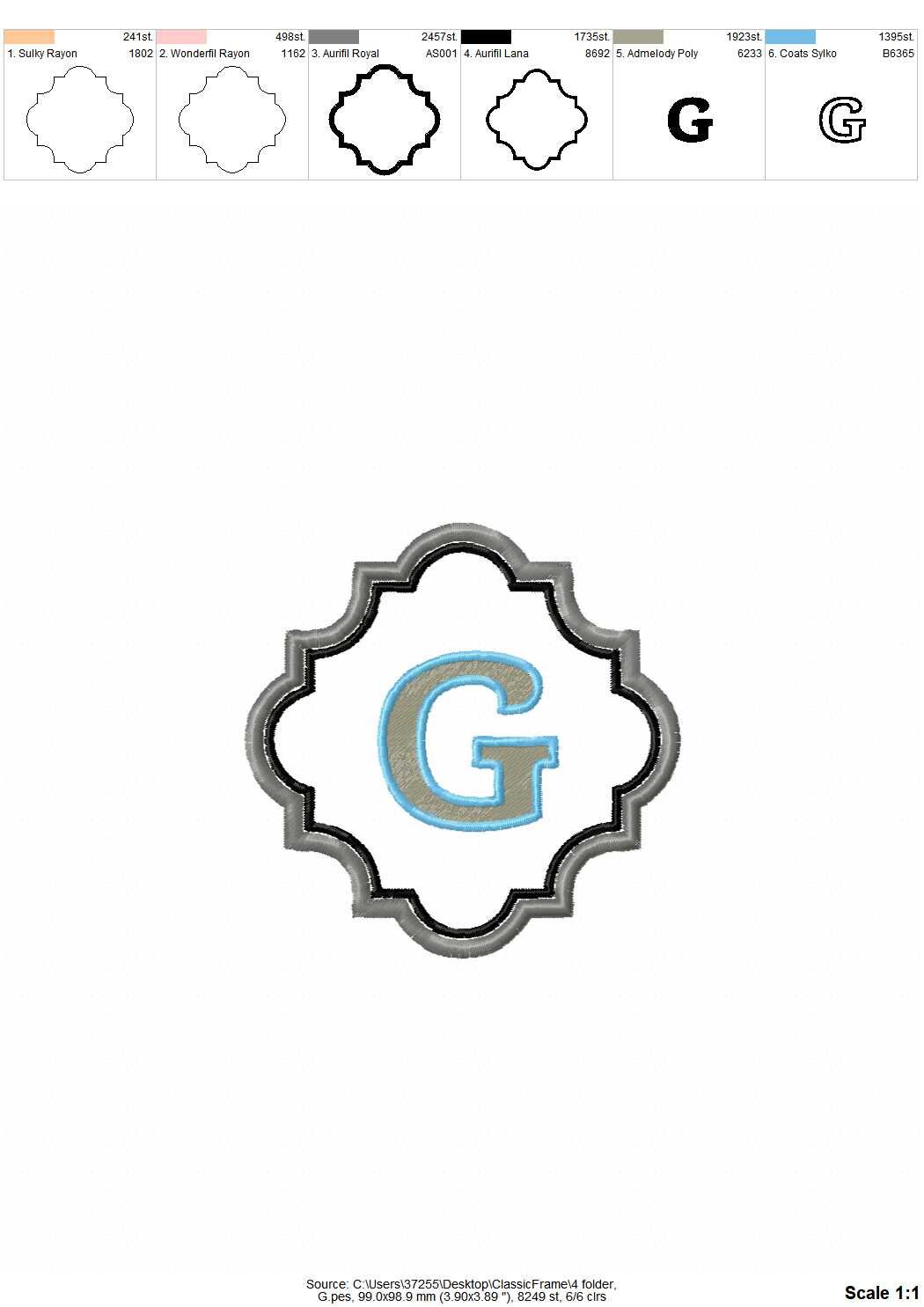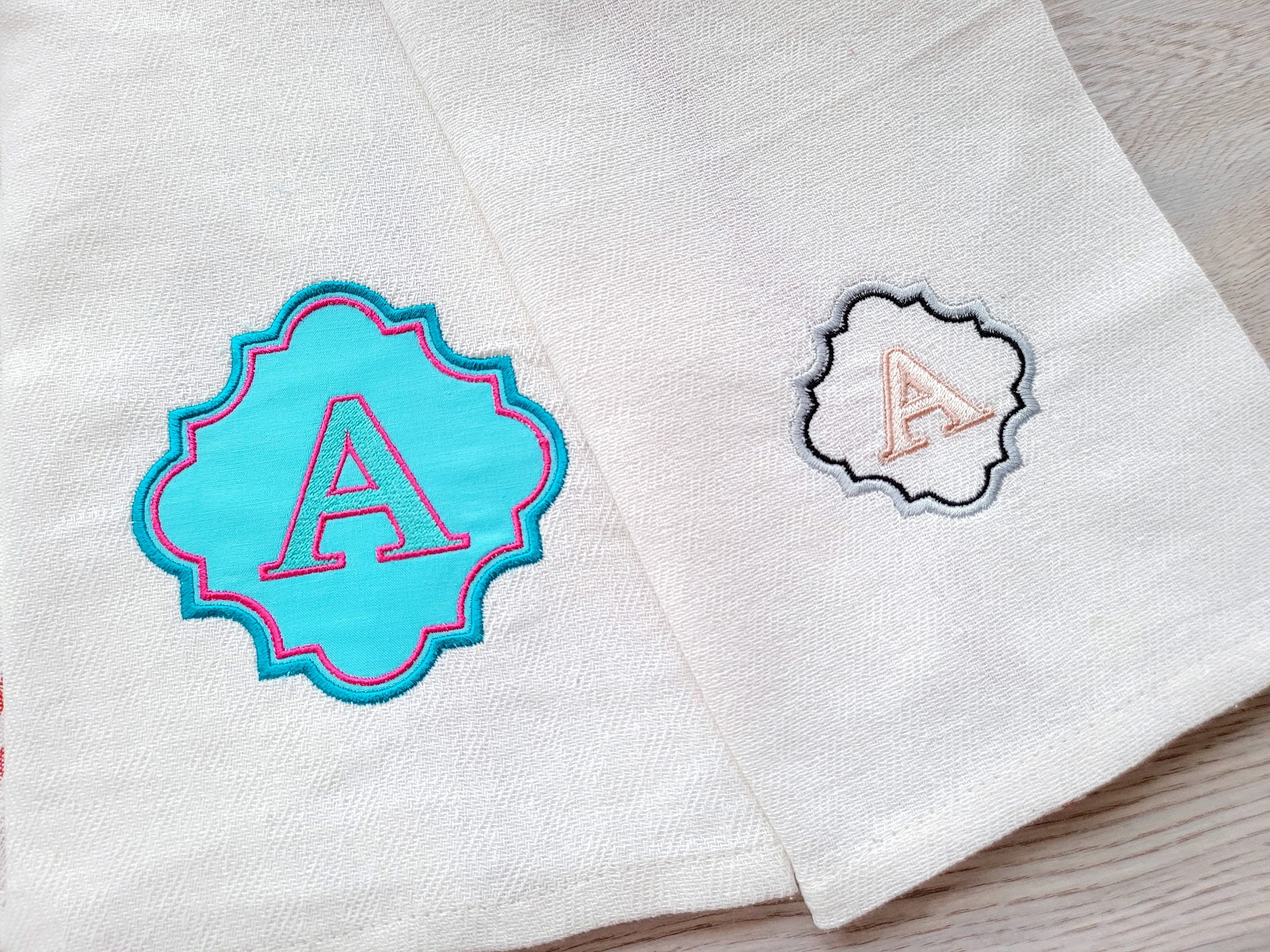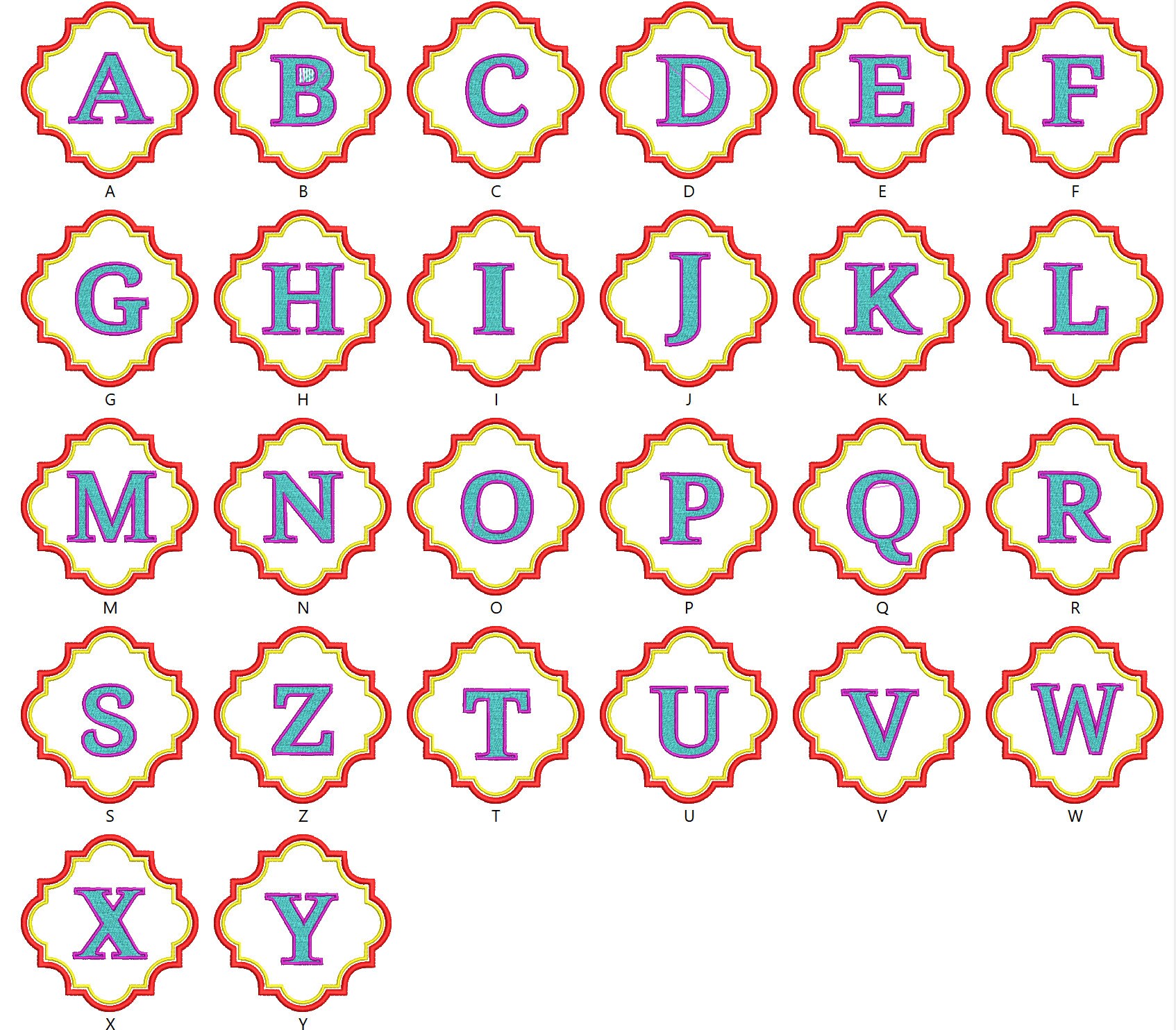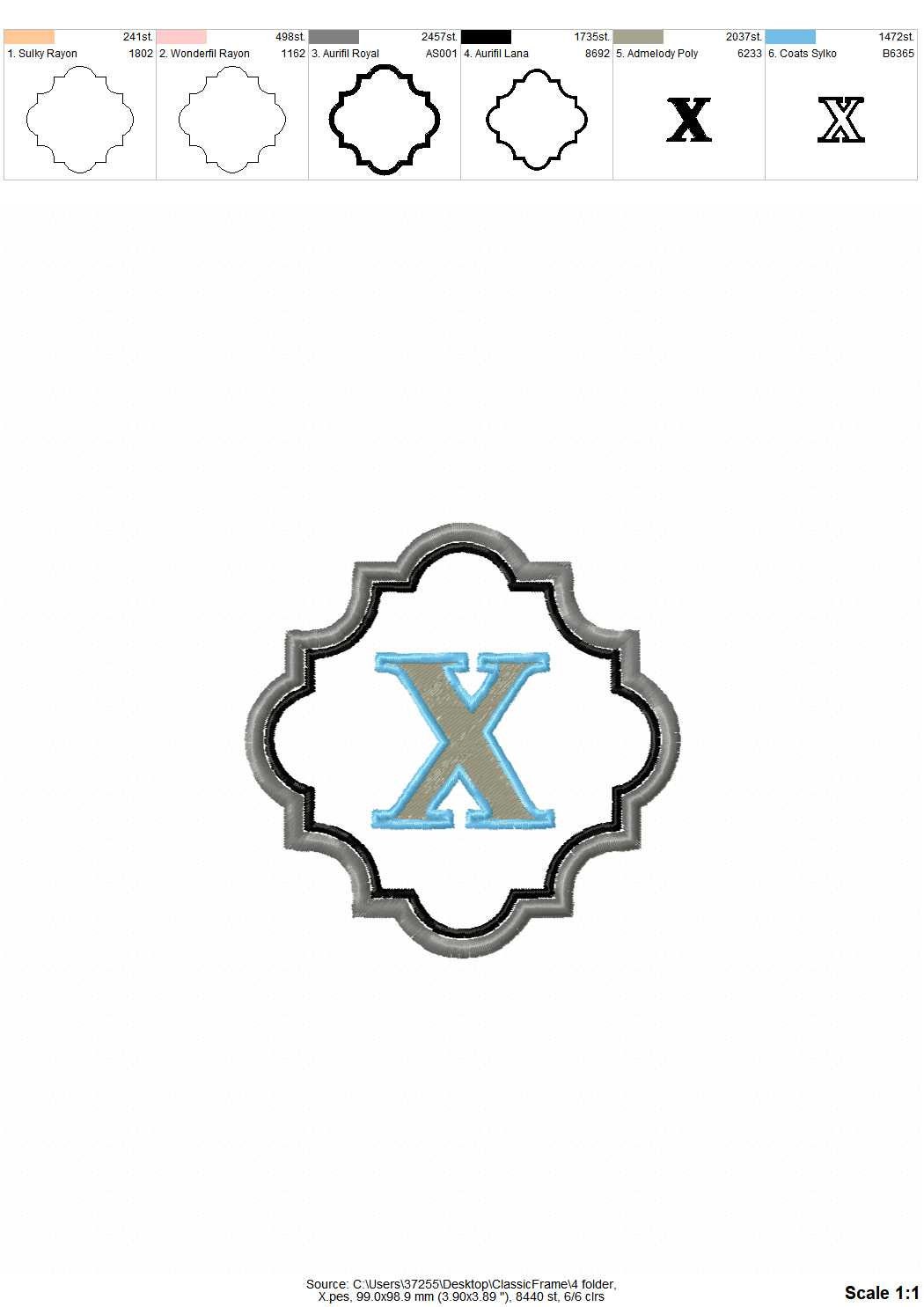
Classic Monogram frame applique and FONT set classy square frame girls birthday wedding gift idea machine embroidery designs assorted sizes
Monogram in classic frame applique, whole alphabet A-Z